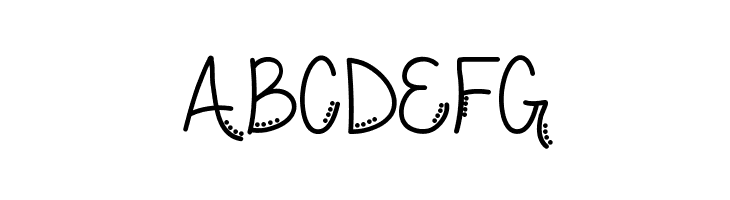
Dual Monarchy Font
- Font: Dual Monarchy
( Fonts by Vanessa Bays - bythebutterfly.com )
A playful, dotted, handwritten-style font with a whimsical flair.